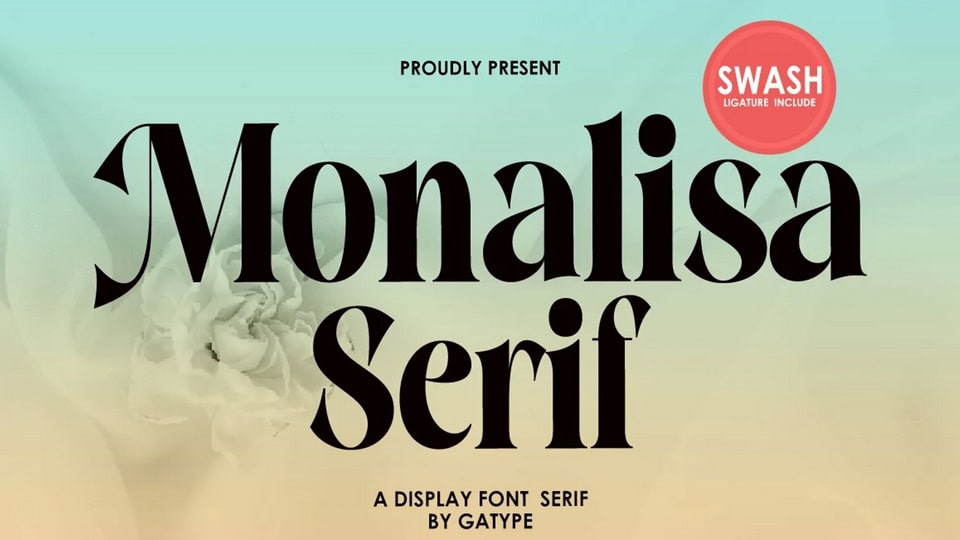
Download Monalisa Serif font, an elegant serif typeface with subtle details. Monalisa Serif is a neat font can add modern and fashionable brand appeal.